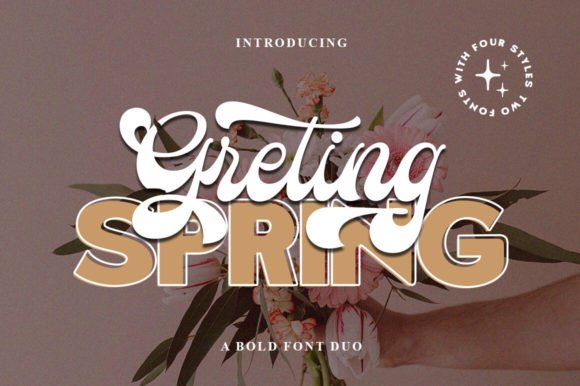
Introducing Greting Spring Duo Font: Elevate Your Brand’s Typography
In the realm of typography, a well-designed font can make all the difference in establishing a brand’s identity. For those seeking a unique and stylish approach, the Greting Spring Duo Font is an excellent choice. This retro-styled font is meticulously crafted to assist designers in creating captivating logotypes or writing styles for their brand or clients. In this article, we’ll delve into the features and benefits of the Greting Spring Duo Font, exploring how it can enhance your design endeavors.
Key Features of Greting Spring Duo Font
- Comprehensive Character Set: The Greting Spring font boasts an extensive character set, encompassing all the necessary characters, punctuation, and numbers. This ensures that designers have everything they need to create cohesive and visually appealing text.
- Dual Font Styles: The Greting Spring Duo Font package includes two distinct font styles. These fonts are designed to be used in conjunction with each other, leveraging a layering method to produce stunning and intricate text effects.
- Effortless Design: One of the standout advantages of the Greting Spring font is its ease of use. No longer will designers need to invest considerable time and effort into brainstorming ways to add effects to their text. The Greting Spring font streamlines the design process, allowing for the creation of captivating text with minimal hassle.
The Design Behind Greting Spring Retro Font
The Greting Spring retro font is thoughtfully styled to resemble a logotype letter. This design approach ensures that the font can be used effectively for a wide range of applications, from branding and advertising to packaging and digital media. The logotype style also lends itself well to creating memorable and impactful text, making it an excellent choice for designers looking to leave a lasting impression.
The font’s design is characterized by its unique blend of classic and modern elements. The retro aesthetic is balanced by clean lines and a clear structure, making it both visually appealing and highly legible. This balance is crucial, as it allows the font to be used in various contexts without compromising on style or readability.
Practical Applications of Greting Spring Duo Font
The versatility of the Greting Spring Duo Font makes it suitable for a broad spectrum of design projects. Here are a few practical applications:
- Branding and Identity: Establish a strong brand identity with a unique logotype or writing style that sets your brand apart from the competition.
- Advertising and Marketing: Create eye-catching advertisements and marketing materials that capture the attention of your target audience.
- Packaging Design: Enhance your product packaging with distinctive and attractive typography that reflects your brand’s personality.
- Digital Media: Use the Greting Spring font in digital media, such as website headers, social media graphics, and email newsletters, to create a consistent and engaging visual experience.
The Benefits of Using Greting Spring Duo Font
There are numerous benefits to incorporating the Greting Spring Duo Font into your design workflow:
- Time Efficiency: The font’s comprehensive character set and dual font styles save designers time and effort, allowing them to focus on other aspects of their project.
- Enhanced Creativity: The unique design and layering capabilities of the Greting Spring font open up new creative possibilities, enabling designers to experiment with different text effects and styles.
- Consistency: Using a single font family ensures consistency across various design materials, contributing to a cohesive brand image.
- Professionalism: The high-quality design of the Greting Spring font lends a professional touch to any project, elevating the overall quality and impact of the design.
Tips for Getting the Most Out of Greting Spring Duo Font
To maximize the potential of the Greting Spring Duo Font, consider the following tips:
- Experiment with Layering: Take advantage of the font’s layering method to create intricate and visually appealing text effects. Don’t be afraid to experiment with different combinations to find the perfect look for your project.
- Mix and Match: Combine the Greting Spring font with other design elements, such as images and graphics, to create a balanced and engaging visual experience.
- Consider Context: Keep in mind the context in which your design will be used. Ensure that the font size, color, and style are appropriate for the medium, whether it’s a billboard, website, or social media post.
- Maintain Readability: While it’s tempting to push the creative boundaries of the Greting Spring font, remember to prioritize readability. Ensure that your text is clear and easy to read, even at smaller sizes.
The Greting Spring Duo Font is a versatile and stylish typography solution that can elevate any design project. With its comprehensive character set, dual font styles, and effortless design capabilities, it’s an excellent choice for designers looking to create captivating text. By incorporating the Greting Spring font into your workflow, you’ll be able to streamline your design process, enhance your creativity, and produce professional-grade results. Whether you’re working on branding, advertising, packaging, or digital media, the Greting Spring Duo Font is a valuable asset that can help you achieve your design goals.